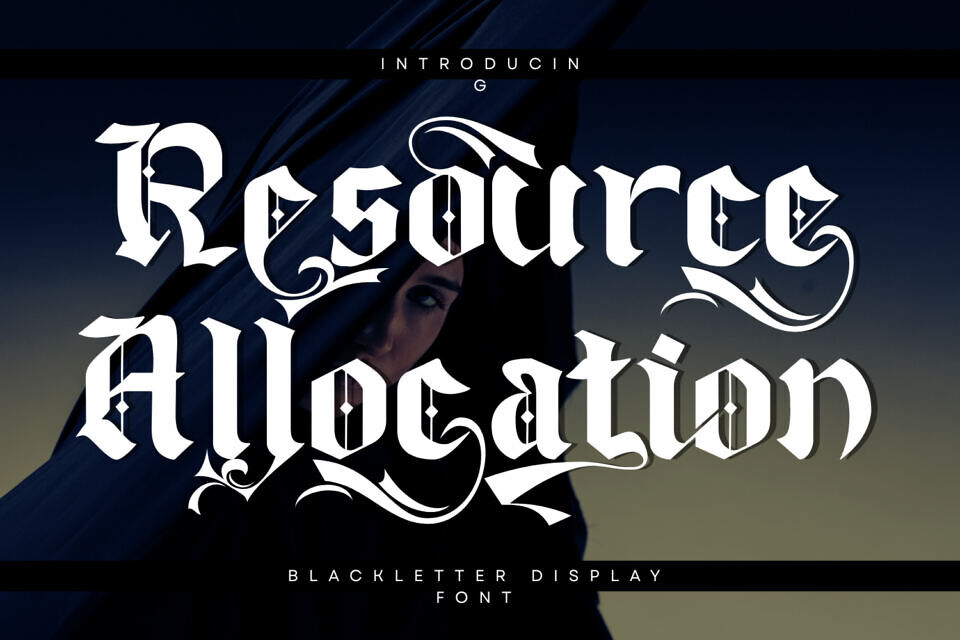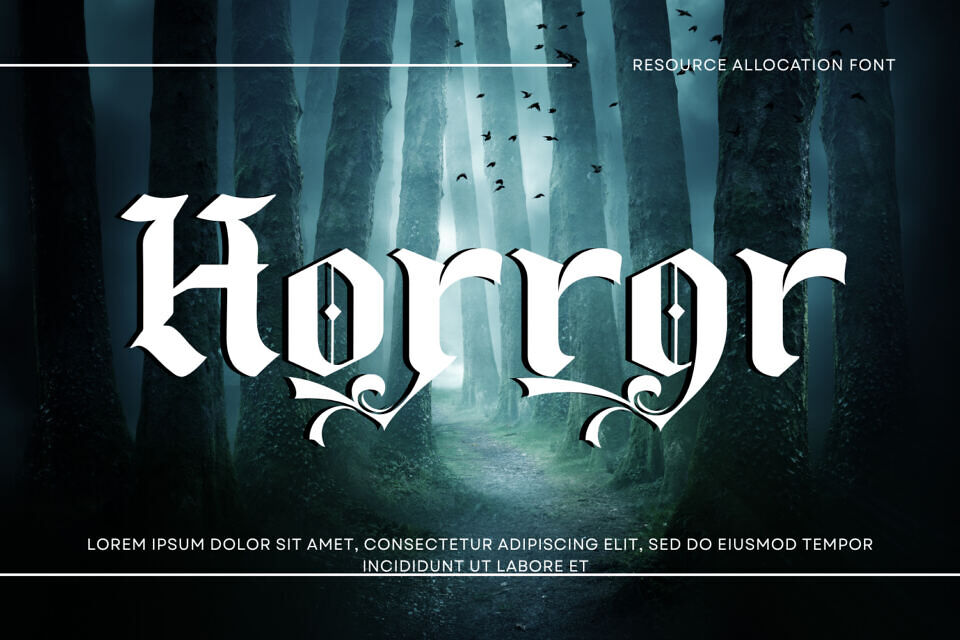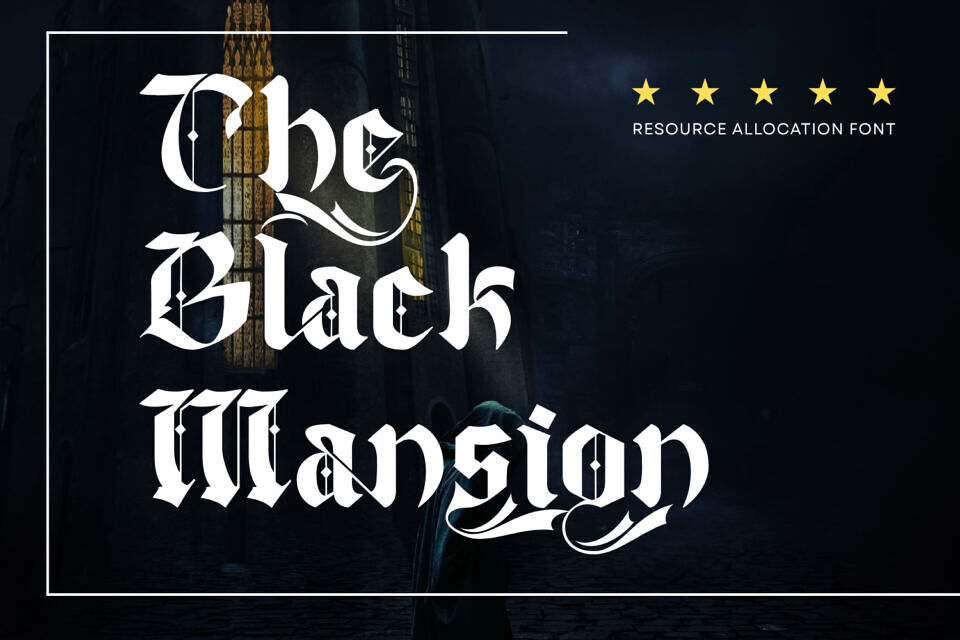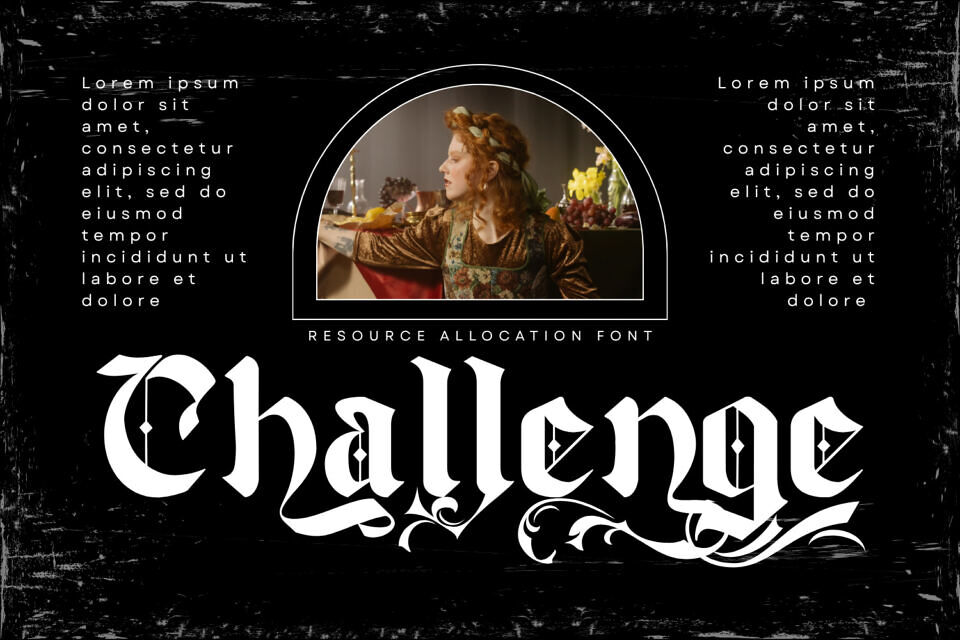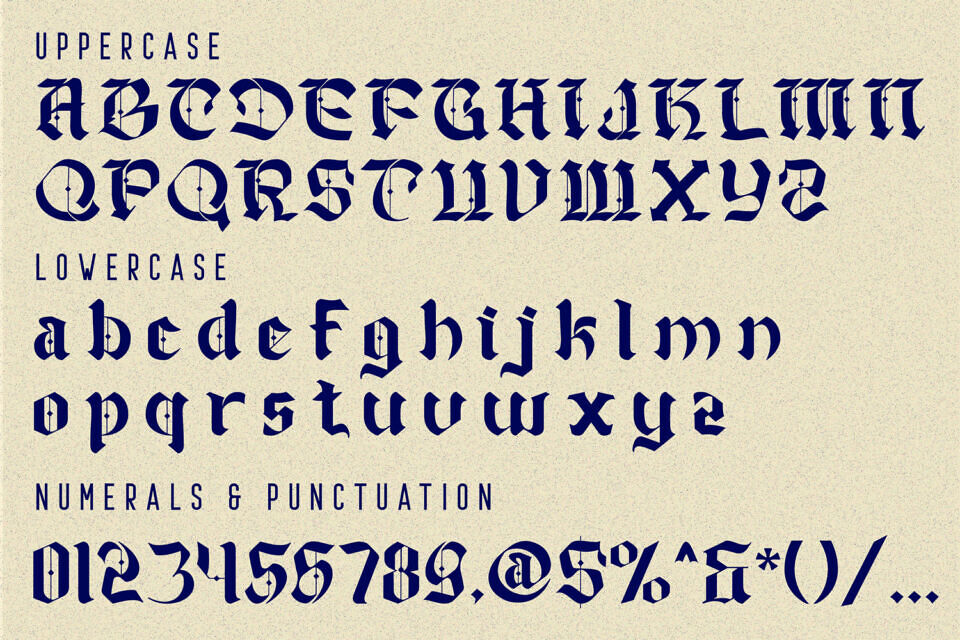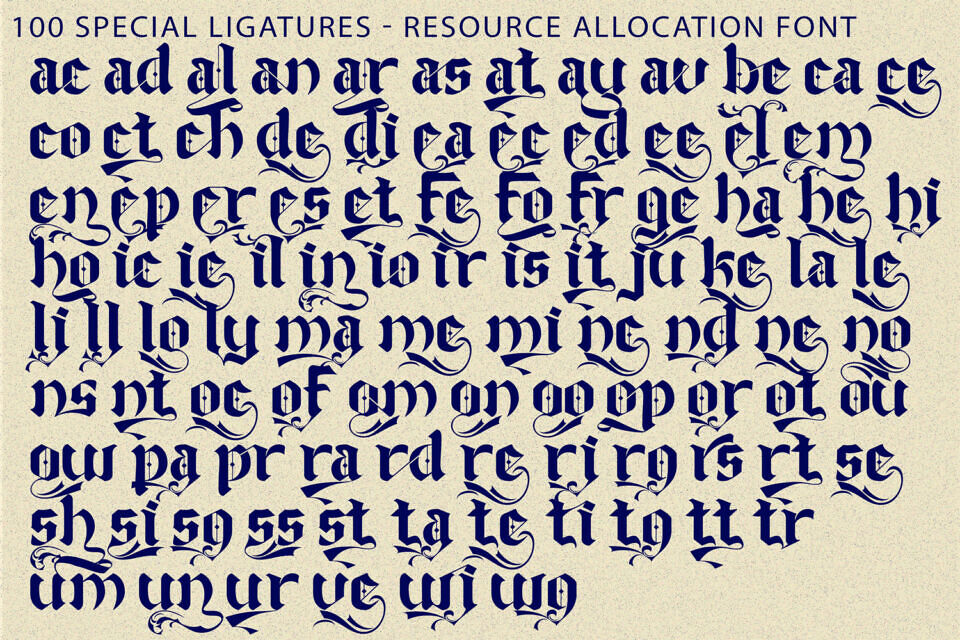
Resource Allocation Font
Resource Allocation is a bold blackletter display font inspired by classic Gothic and Old English typography, enriched with modern ornamental details. Featuring sharp angular strokes and dramatic contrast, this typeface captures a strong historical character while maintaining a refined and stylish appearance.
Each letter is carefully crafted with decorative swashes, intricate cuts, and unique inner details, adding depth and personality to every composition. The flowing flourishes and ornamental extensions create a sense of movement and elegance, making the font both powerful and artistic.